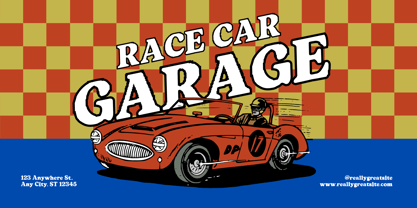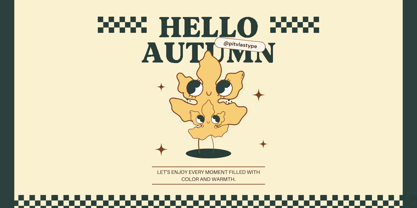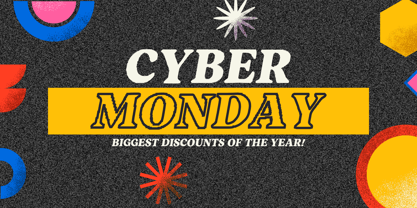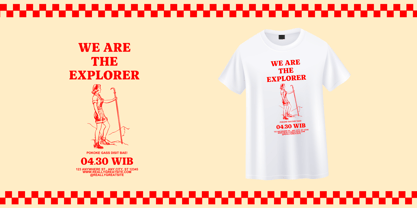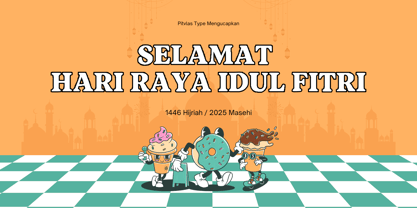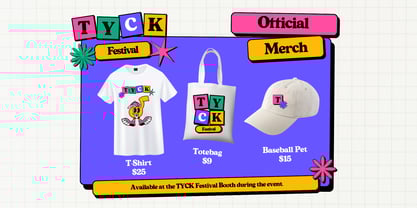
Singgelis
by Pitvlas Type
The Singgelis Font Family was designed by Yoga Dwi Cahyono and published by Pitvlas Type. Singgelis contains 2 styles and family package options. More about this family
Singgelis is a unique retro-style display typeface designed to bring bold personality and playful energy to your creative projects. Featuring strong, thick letterforms with a textured, slightly distressed finish, this typeface evokes a nostalgic yet modern charm. Perfect for posters, branding, merchandise, and editorial design, Singgelis captures the essence of vintage vibes while remaining versatile for contemporary applications. The quirky and energetic visual language is supported by colorful, fun elements that make it ideal for youthful and expressive design work.